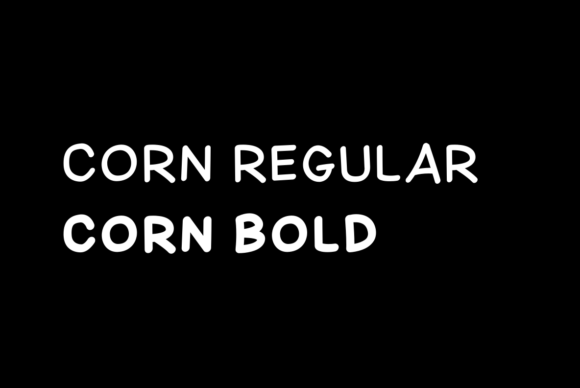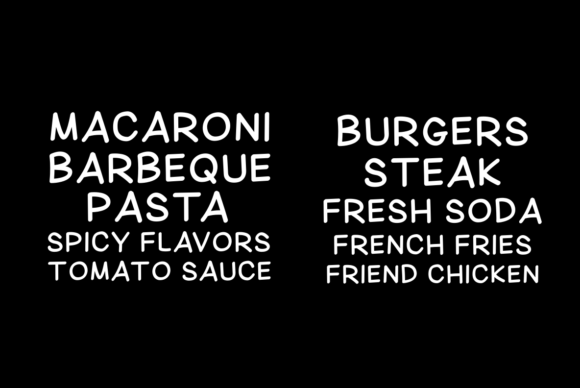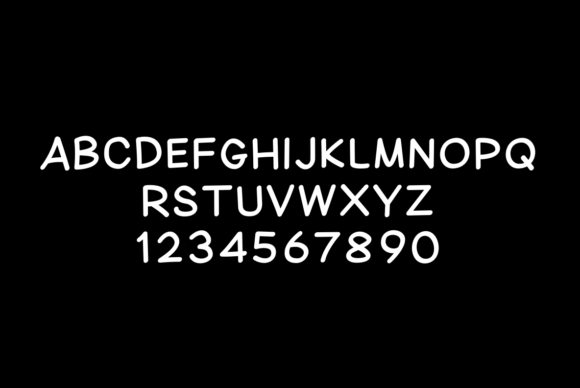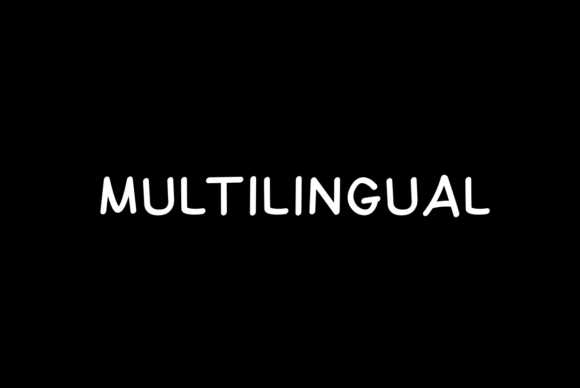
Corn Font: A Casual and Handwritten Typeface for Your Designs
Are you a designer or crafter looking for a unique and casual font to add a personal touch to your projects? Look no further than the Corn Font, a handwritten typeface that exudes a carefree and laid-back vibe. In this article, we’ll dive into the features and benefits of the Corn Font, and explore how you can use it to elevate your designs.
What is Corn Font?
Corn Font is a handwritten font that is characterized by its casual and relaxed impression. It’s perfect for designers and crafters who want to add a touch of personality to their projects. The font is available in two styles: regular and bold, giving you flexibility and versatility in your design choices.
Key Features of Corn Font
- Handwritten with a casual impression: Corn Font has a unique, hand-crafted feel that sets it apart from more formal fonts.
- Two styles: regular and bold: Use the regular style for body text or the bold style to make a statement.
- Suitable for casual themed designs: Corn Font is perfect for projects that require a relaxed and informal tone.
Benefits of Using Corn Font
So why choose Corn Font for your designs? Here are just a few benefits:
- Adds a personal touch: Corn Font’s handwritten style gives your designs a personal and human touch.
- Creates a casual and relaxed atmosphere: Use Corn Font to create a laid-back and informal vibe in your designs.
- Versatile and flexible: With two styles to choose from, you can use Corn Font in a variety of design contexts.
Design Ideas Using Corn Font
So how can you use Corn Font in your designs? Here are a few ideas to get you started:
- Invitations and party decor: Use Corn Font to create playful and casual invitations, party hats, and decorations.
- Branding and packaging: Add a personal touch to your brand’s packaging and marketing materials with Corn Font.
- Blogging and social media: Use Corn Font to create eye-catching blog posts, social media graphics, and other online content.
Tips for Using Corn Font Effectively
To get the most out of Corn Font, here are a few tips:
- Pair with other fonts: Combine Corn Font with other fonts to create visual interest and contrast.
- Use contrasting colors: Make Corn Font stand out with contrasting colors that pop.
- Experiment with sizes and styles: Play around with different sizes and styles to find the perfect fit for your design.
In conclusion, Corn Font is a versatile and charming handwritten font that’s perfect for designers and crafters looking to add a casual and relaxed touch to their projects. With its two styles and easy-to-use design, Corn Font is sure to become a go-to font in your design arsenal. So why not give it a try and see how it can elevate your designs?